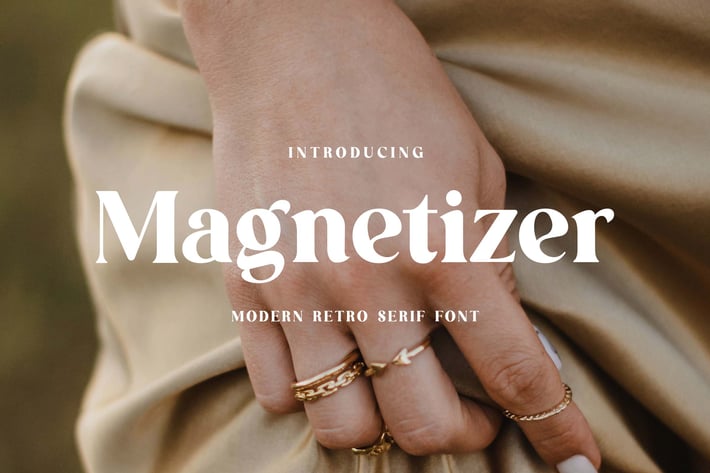
Magetizer Modern Retro Serif Font
Introducing our new product the name is Magetizer Modern Retro Serif Font. Magetizer Modern Retro Serif Font that feels beautiful classy, elegant, and modern. This font is ideally suited for a wide variety of projects, such as signature, stationery, logo, wedding, typography quotes, magazine or book covers, website headers, clothing, branding, packaging design, and more. Also, fashion-related branding or editorial design displays both masculine and feminine qualities.